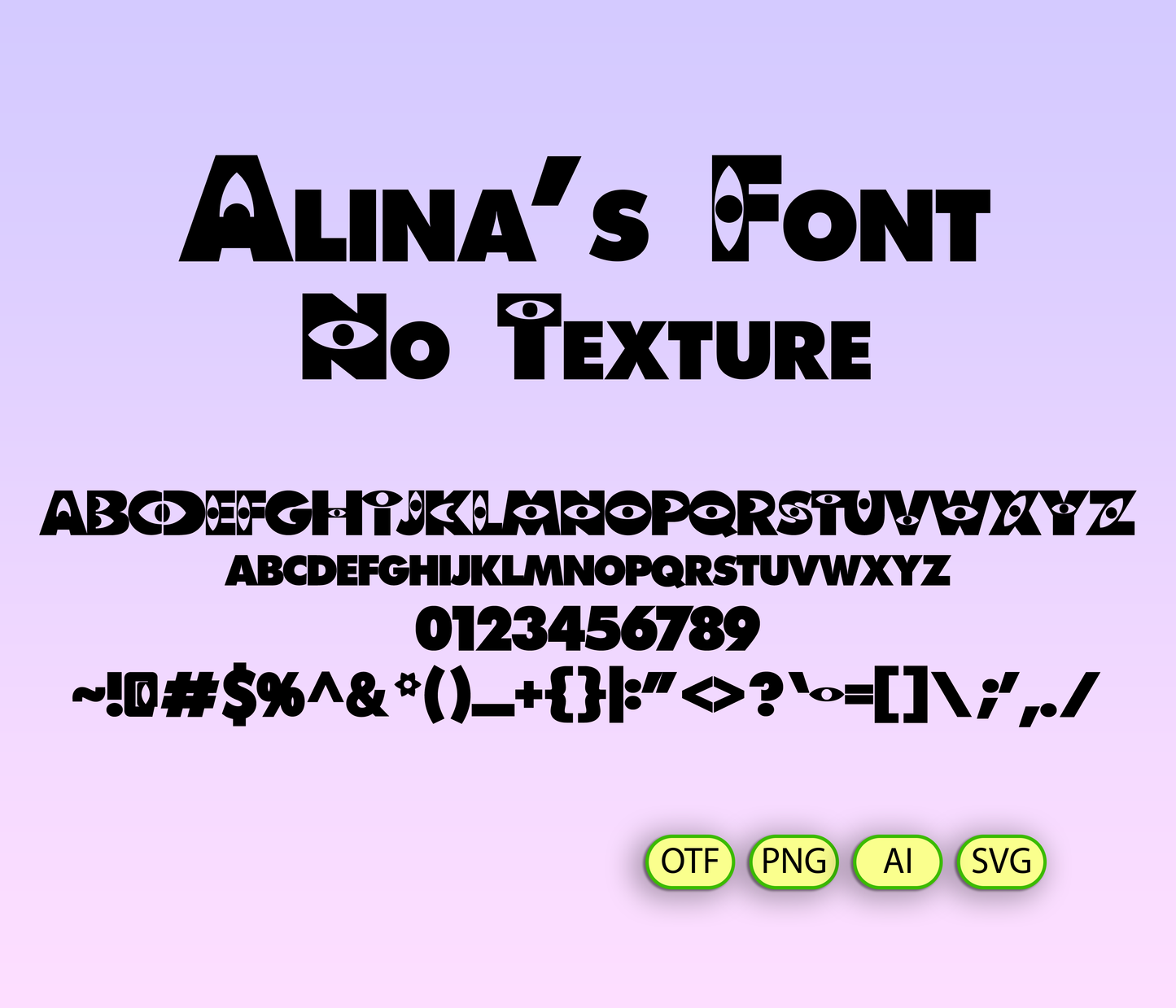
Monster Factory Font
Step into the whimsical world of friendly creatures with our specially designed font, capturing the essence of lovable workplace monsters. Perfect for children's content creators, event organizers, and designers, this font brings the playful, energetic spirit of professional scaring to your projects. Create event invitations, themed merchandise, or digital content with the charming energy of monster-filled adventures.
Our Monster Factory font features bouncy, friendly lines and playful characters reflecting the fun nature of professional monster work. Ideal for:
Our font pays tribute to workplace monster adventures, empowering your designs with its playful and energetic spirit. Whether crafting promotional materials, designing merchandise, or adding a whimsical touch to personal projects, this font communicates the charming essence of monster fun. Ready to inject monster magic into your creations? This font is your key to delightful, impactful design.